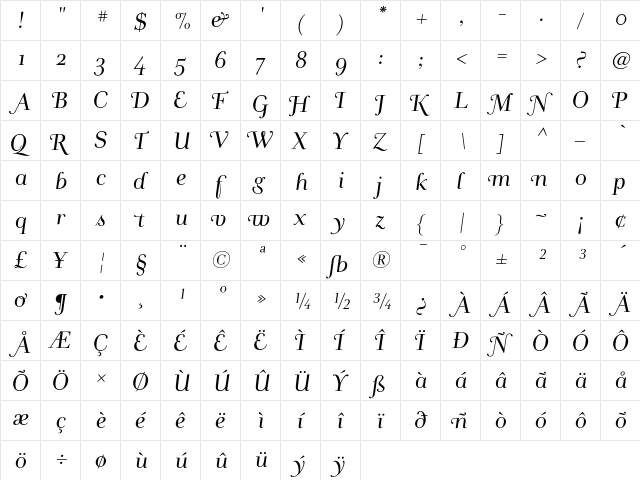
AndradeSwashes Regular
Design Context for AndradeSwashes Typeface
AndradeSwashes brings a calligraphic fluidity to the page — its connecting strokes and expressive curves give it an unmistakably human quality.
Font Pairing: Combine AndradeSwashes with a simple geometric sans for maximum contrast — the tension between flowing curves and clean structure is a classic typographic pairing.
Pro Tip: Pair AndradeSwashes with a clean sans-serif for supporting text. The contrast between fluid script and geometric structure creates an elegant typographic hierarchy.